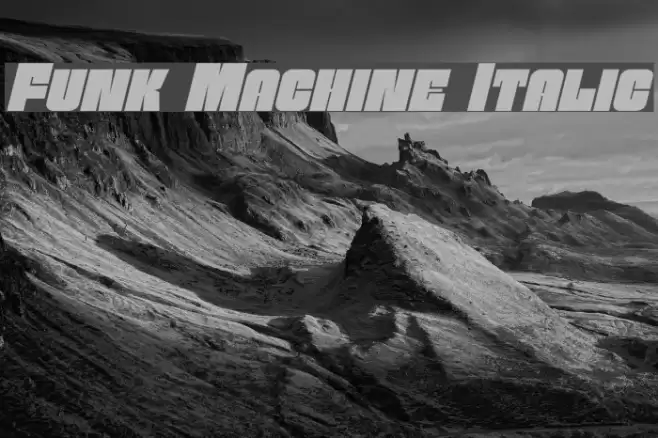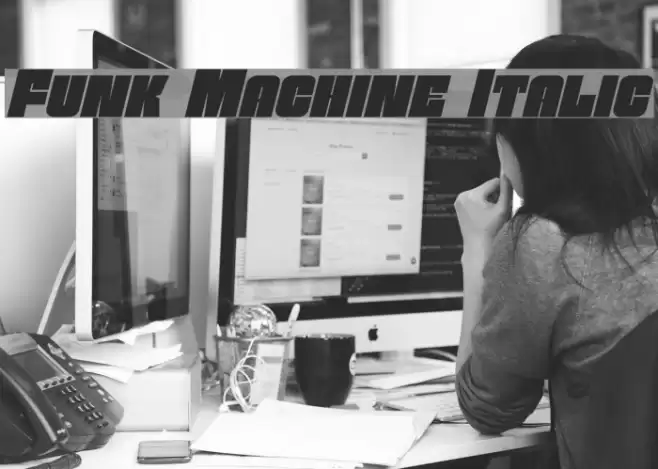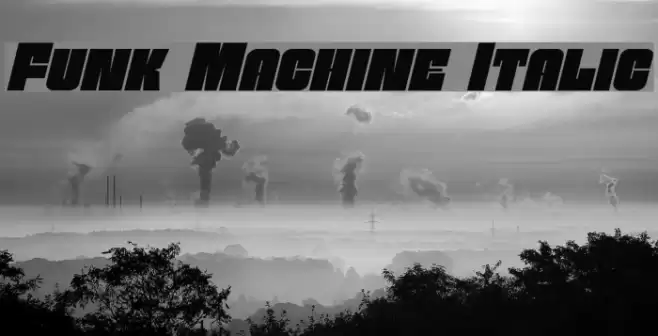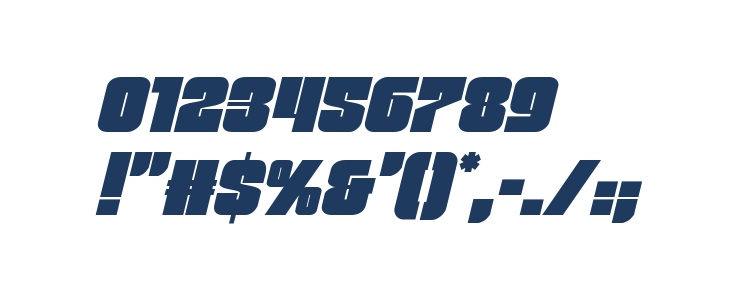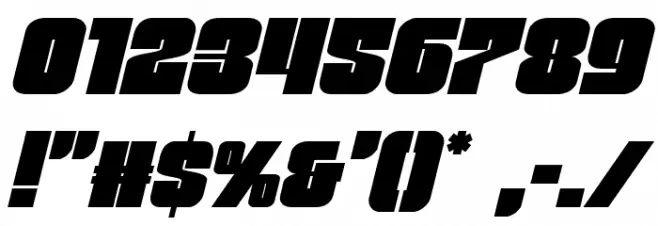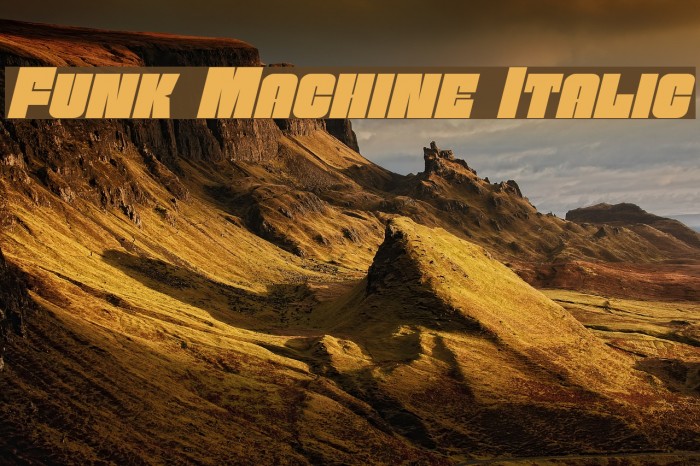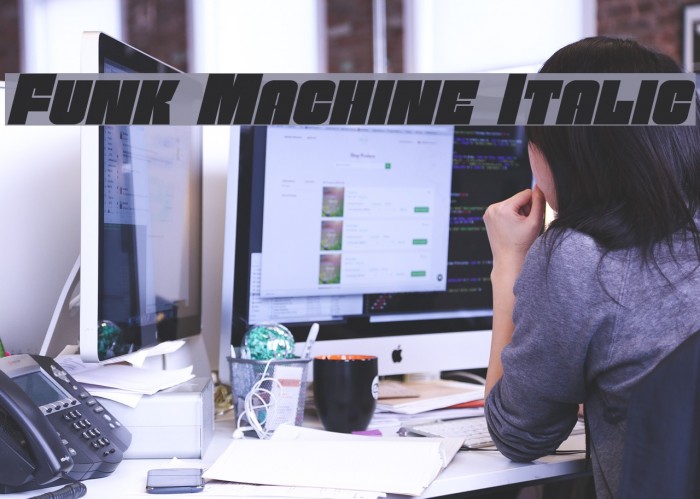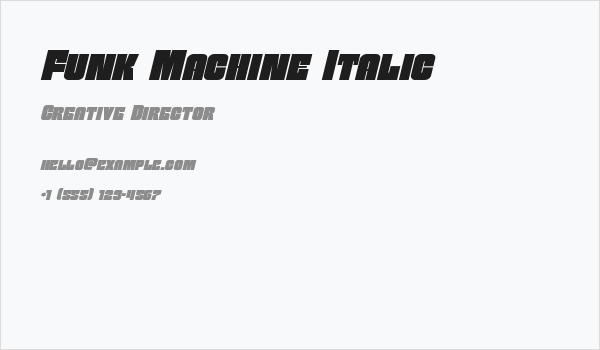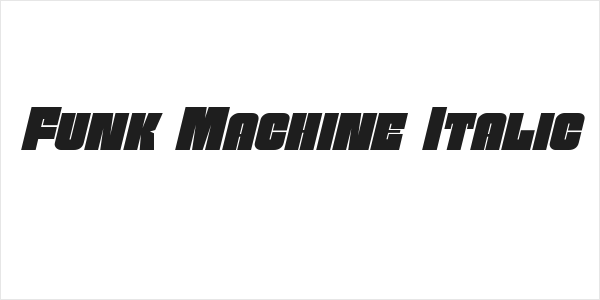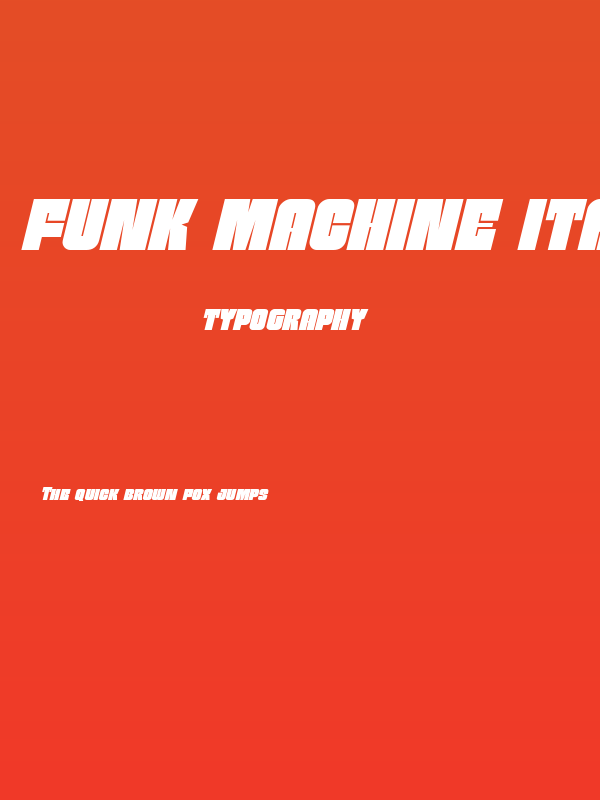
Funk Machine Italic Font
Funk Machine Italic Description
This bold, italicized font exudes a dynamic and energetic vibe, characterized by its thick, blocky letters with a forward slant. The uppercase and lowercase letters maintain a consistent weight, contributing to a strong visual impact. The numbers and special characters are equally robust, ensuring uniformity across all glyphs. The font's design features sharp angles and clean lines, enhancing its modern and assertive appearance. The overall style is reminiscent of retro-futuristic aesthetics, making it ideal for projects that require a bold statement. The spacing between characters is tight, which adds to its compact and cohesive look.
A bold, italicized font with a dynamic, retro-futuristic style from Fancy fonts.
- Proposed Projects: Ideal for posters, logos, album covers, and branding materials that require a bold and energetic look.
- Character Spacing: Tight
- Overall Style: Retro-Futuristic